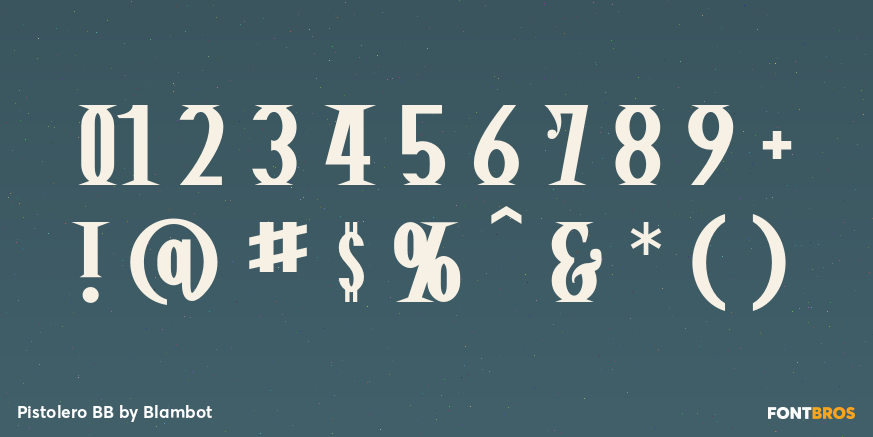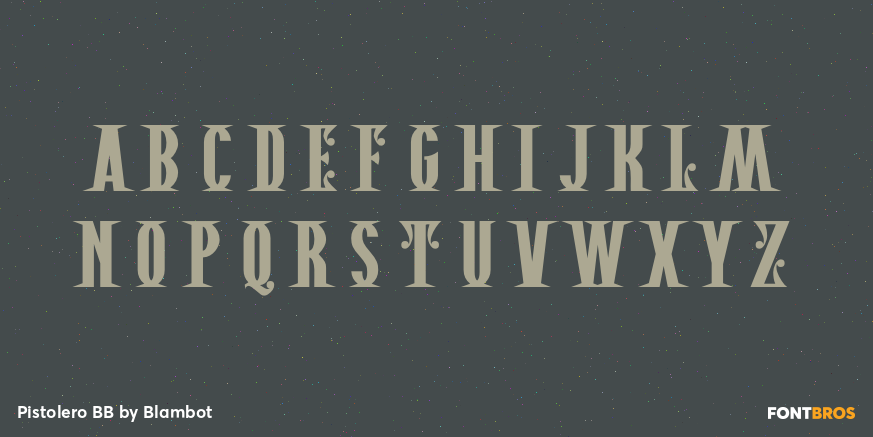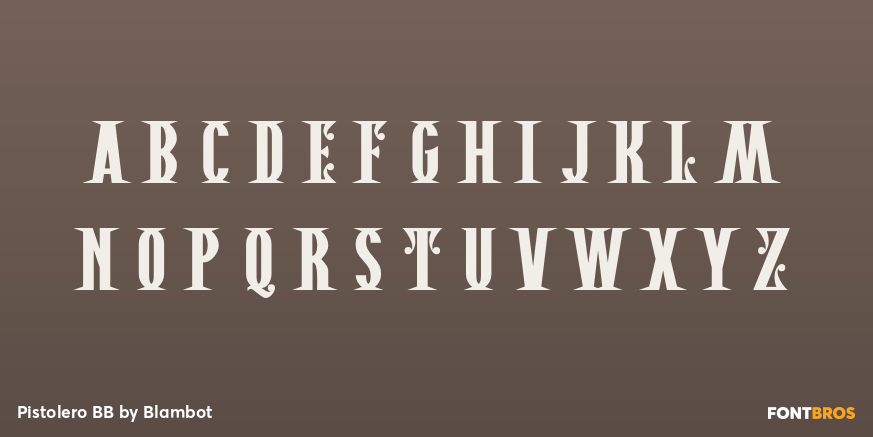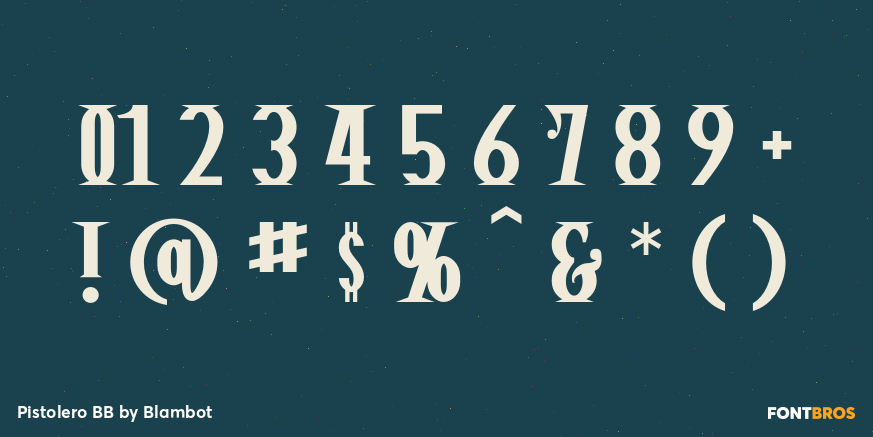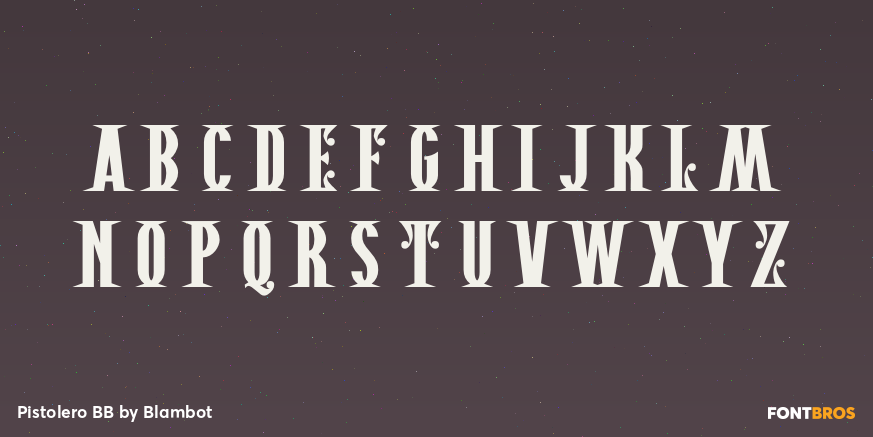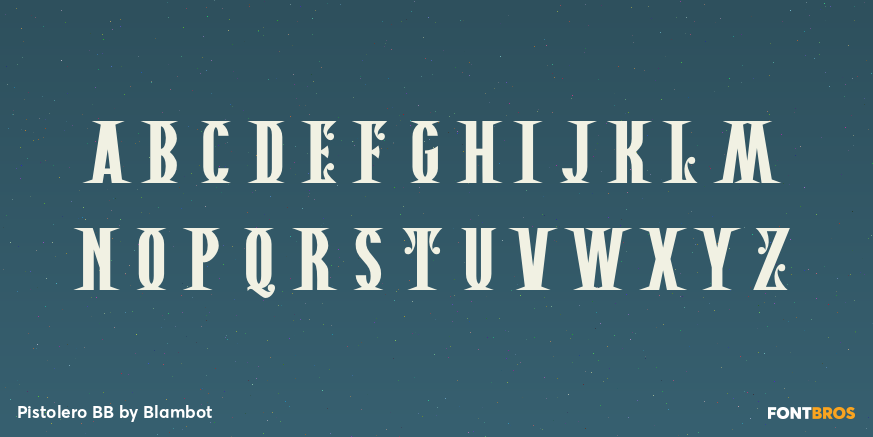
Pistolero BB
Font Family by Blambot
This font has been on the range so long it smells like chipotle chilis, cracked leather and 5-card stud.
There's a cold steel .45 Peacemaker on your hip and that mysterious stranger is staring you down from across the way. He's going to draw any second now?are you ready?
Comes with Pistolero BB and Pistolero Deco BB and sports a cowboy-sized portion of European characters to boot.